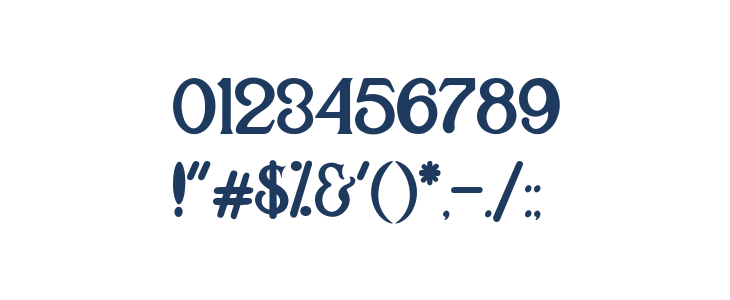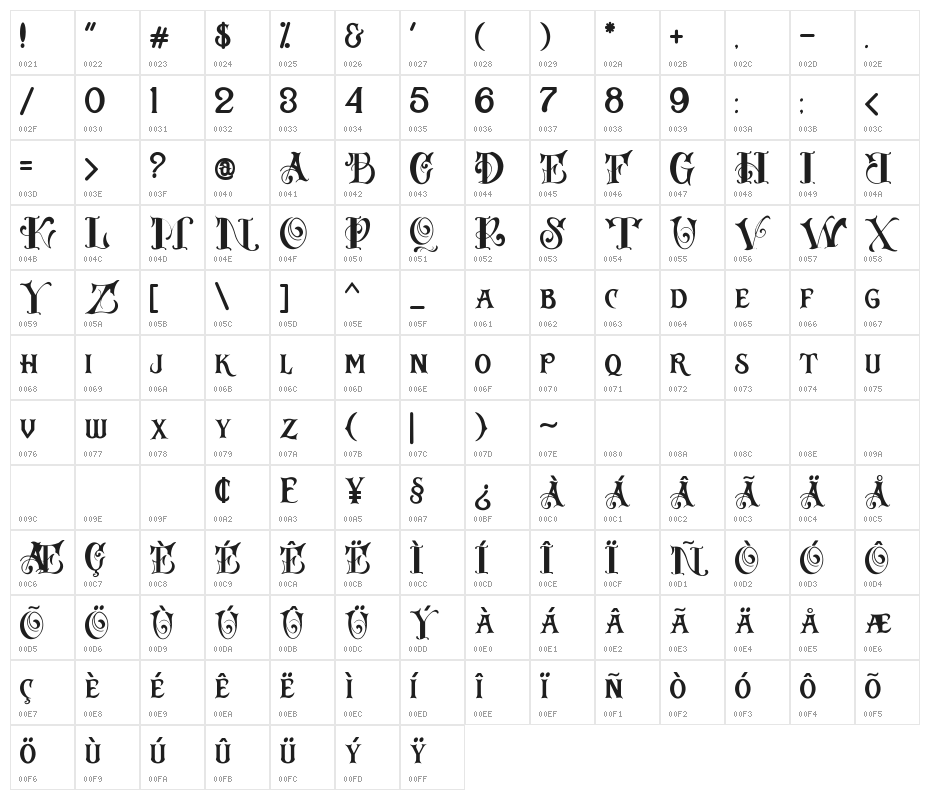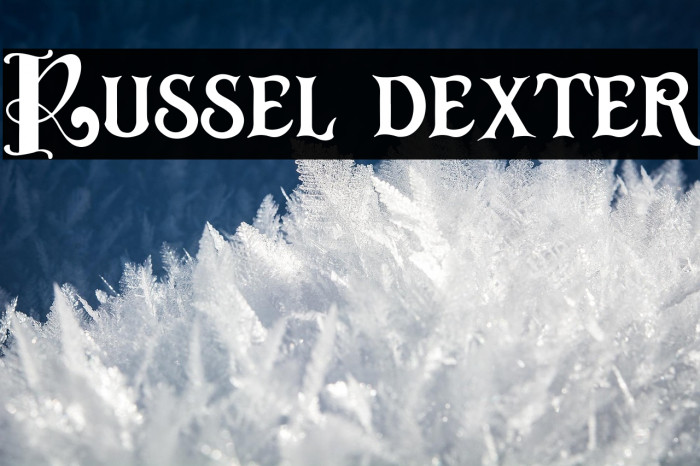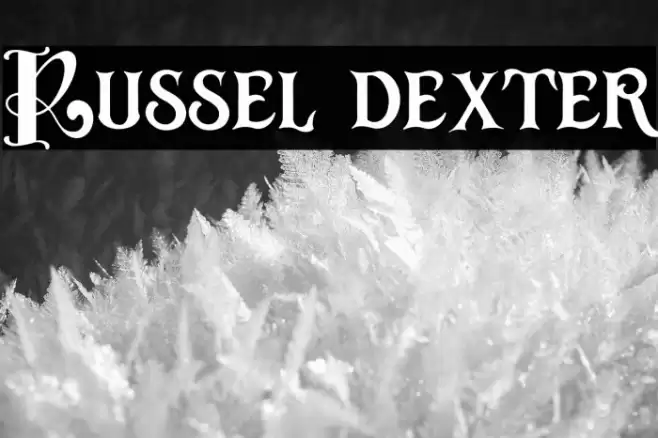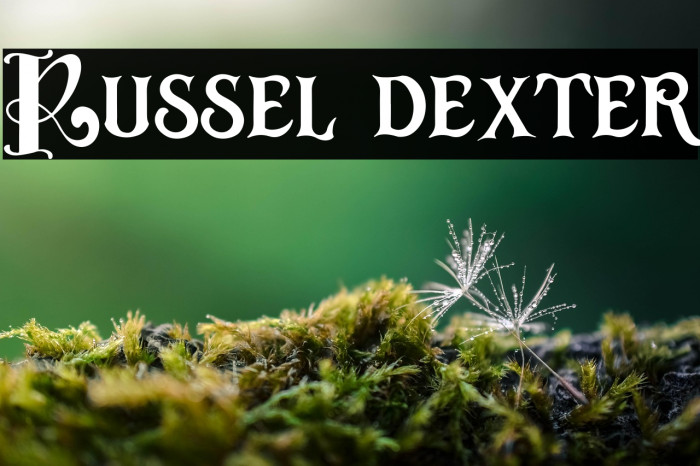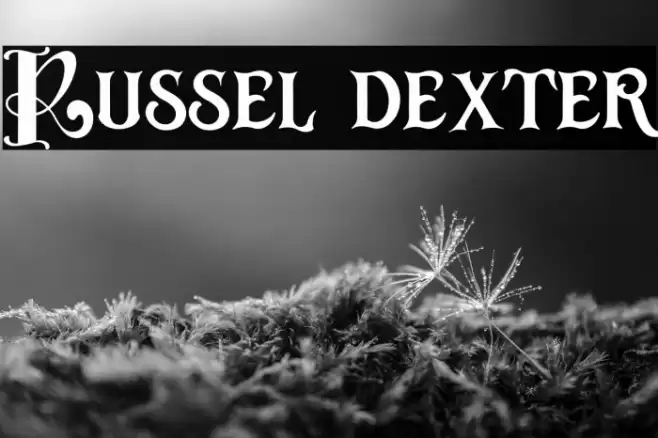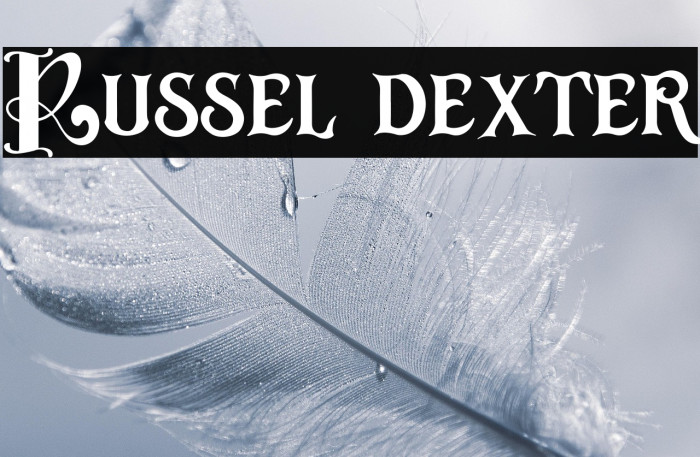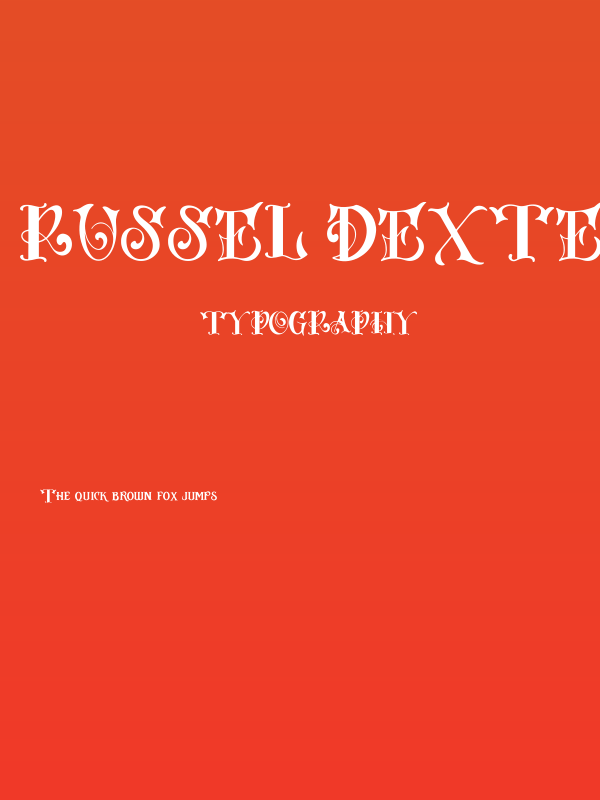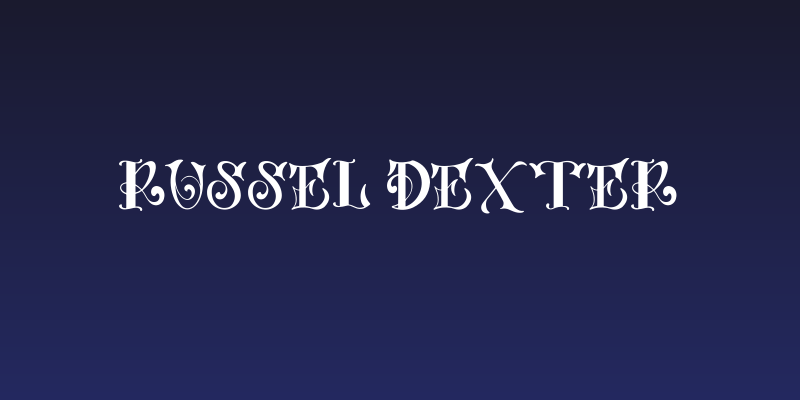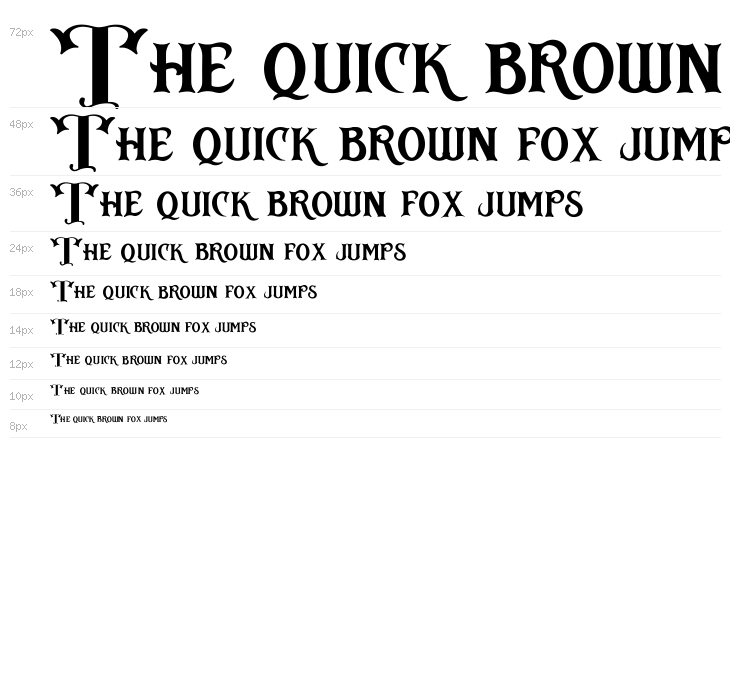
Russel dexter Font
Russel dexter Description
This font features a unique blend of ornate and bold styles, offering a distinct visual appeal. The uppercase letters exhibit intricate flourishes and decorative elements, reminiscent of vintage calligraphy, while maintaining a bold presence. The lowercase letters are more straightforward, providing a balance between readability and style. The numbers are bold and rounded, ensuring clarity and impact. Special characters are designed with a similar boldness, integrating seamlessly with the overall aesthetic. This font is ideal for projects that require a touch of elegance and boldness, such as invitations, posters, and branding materials.